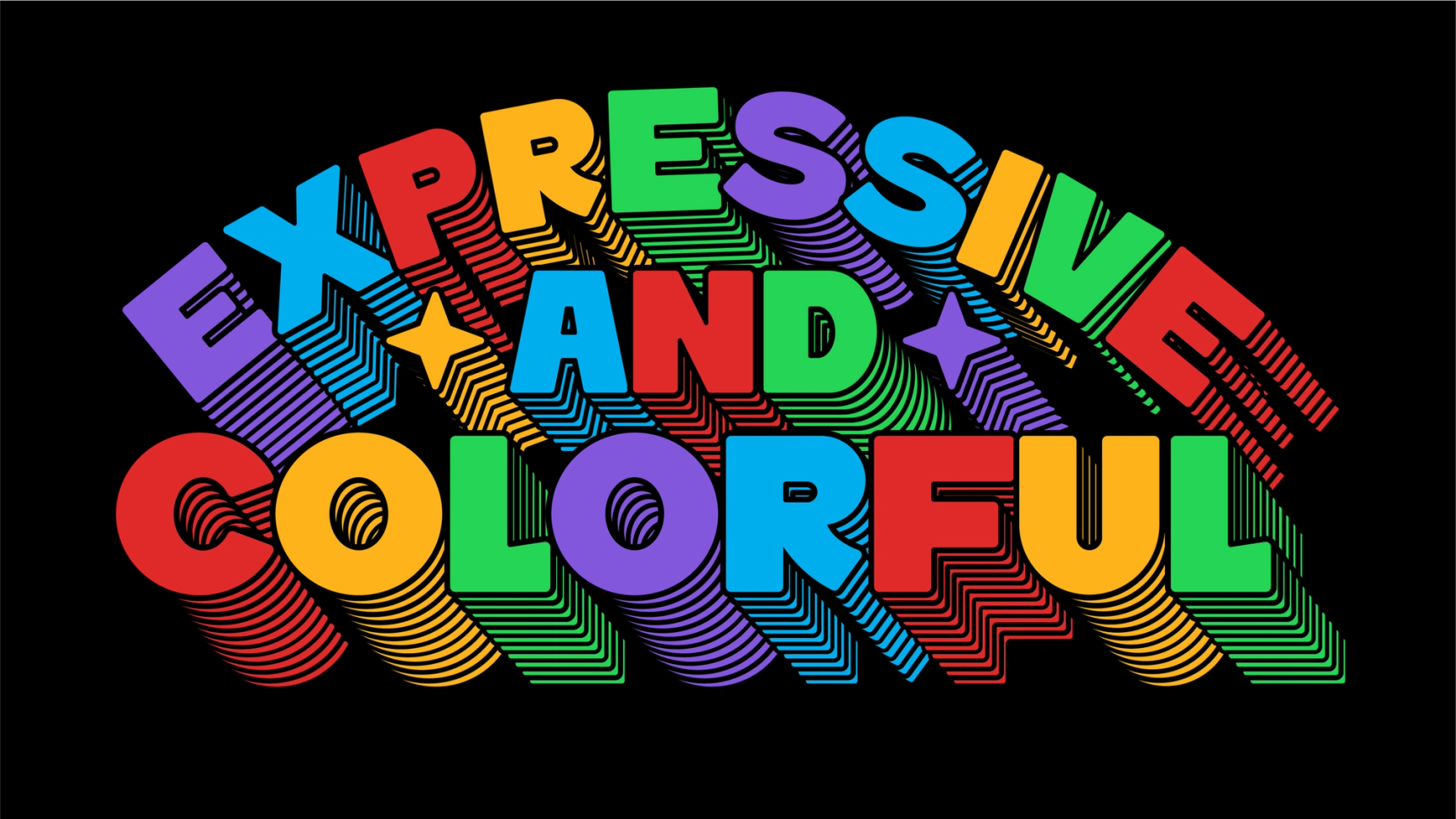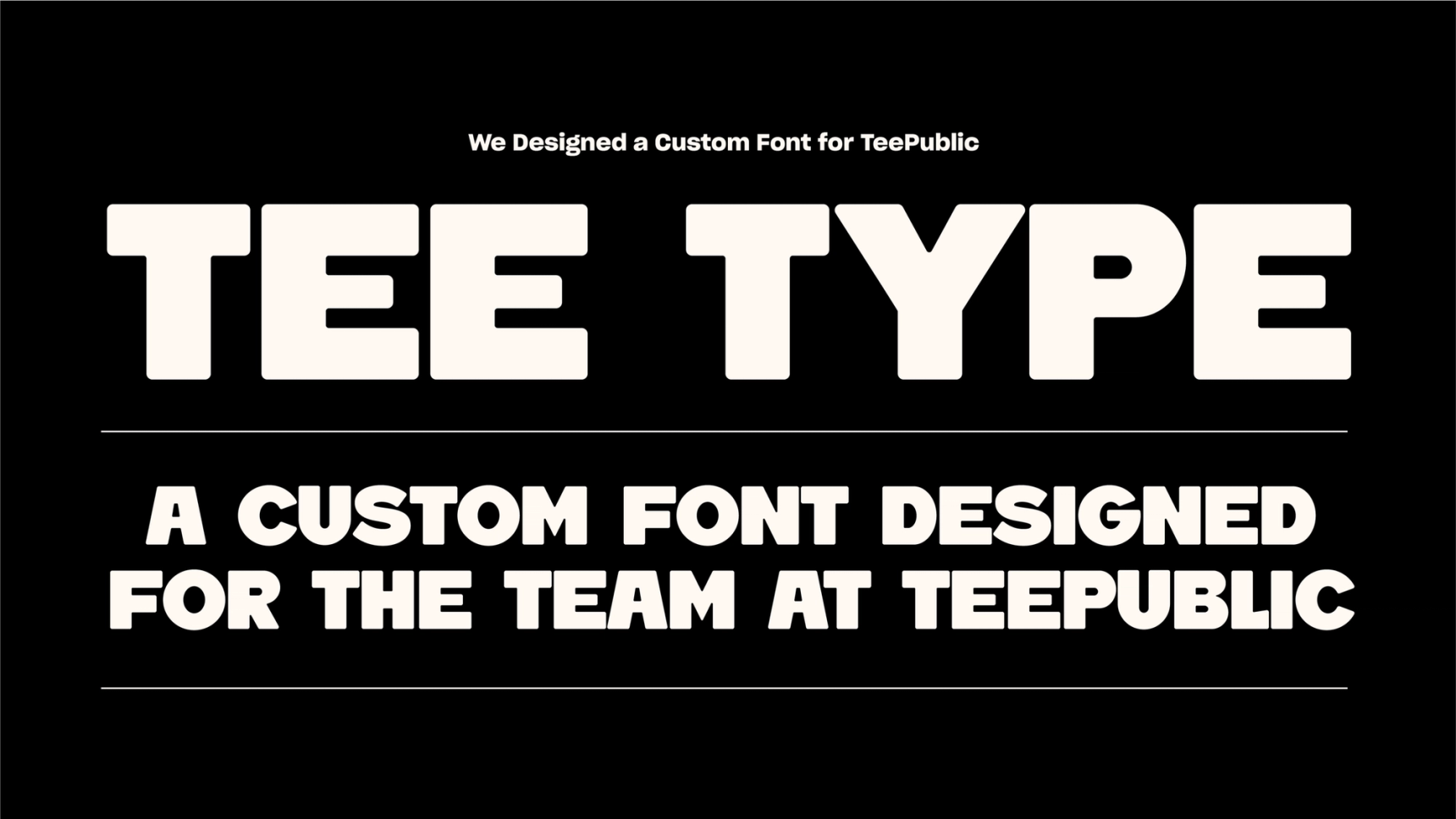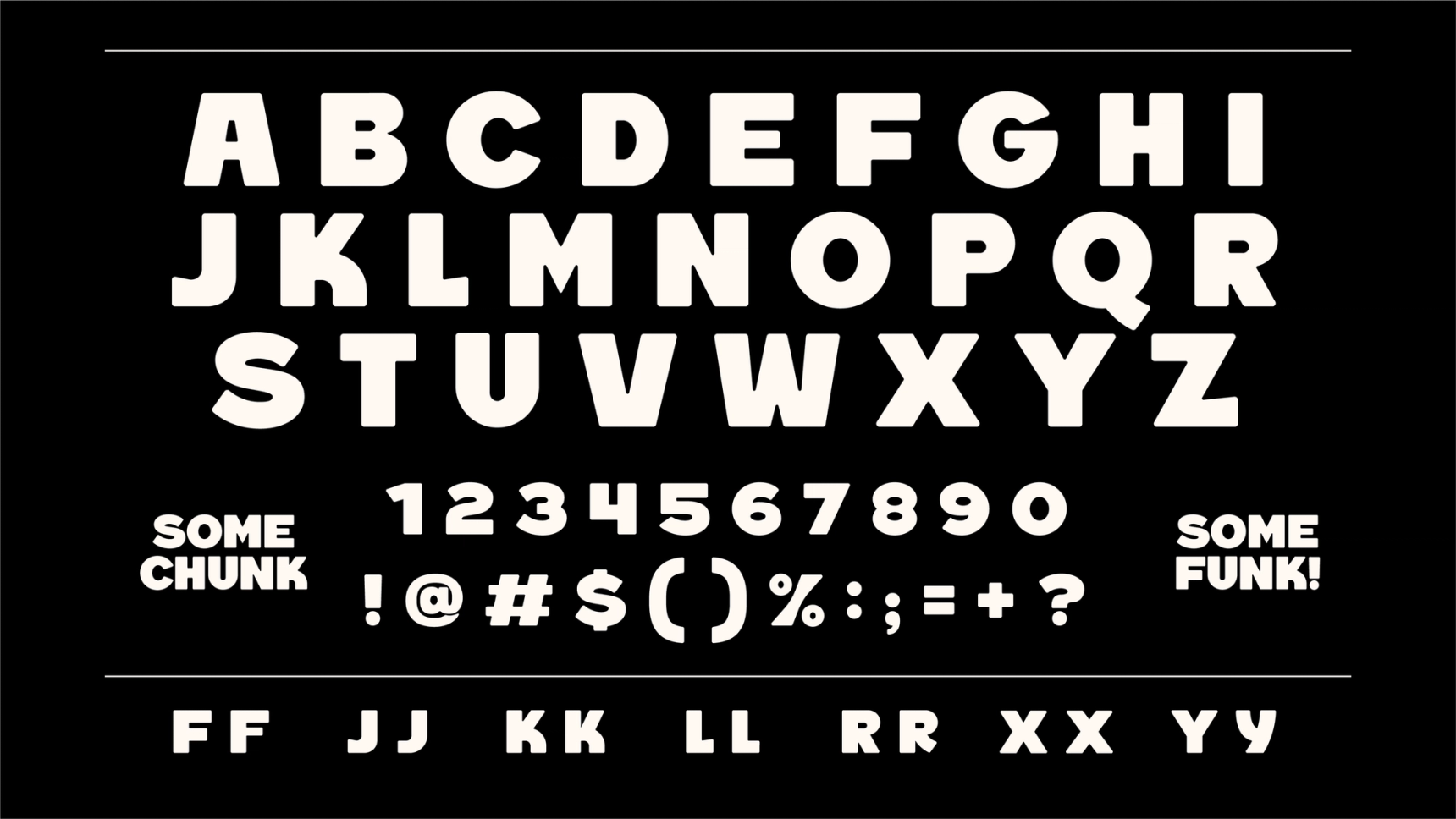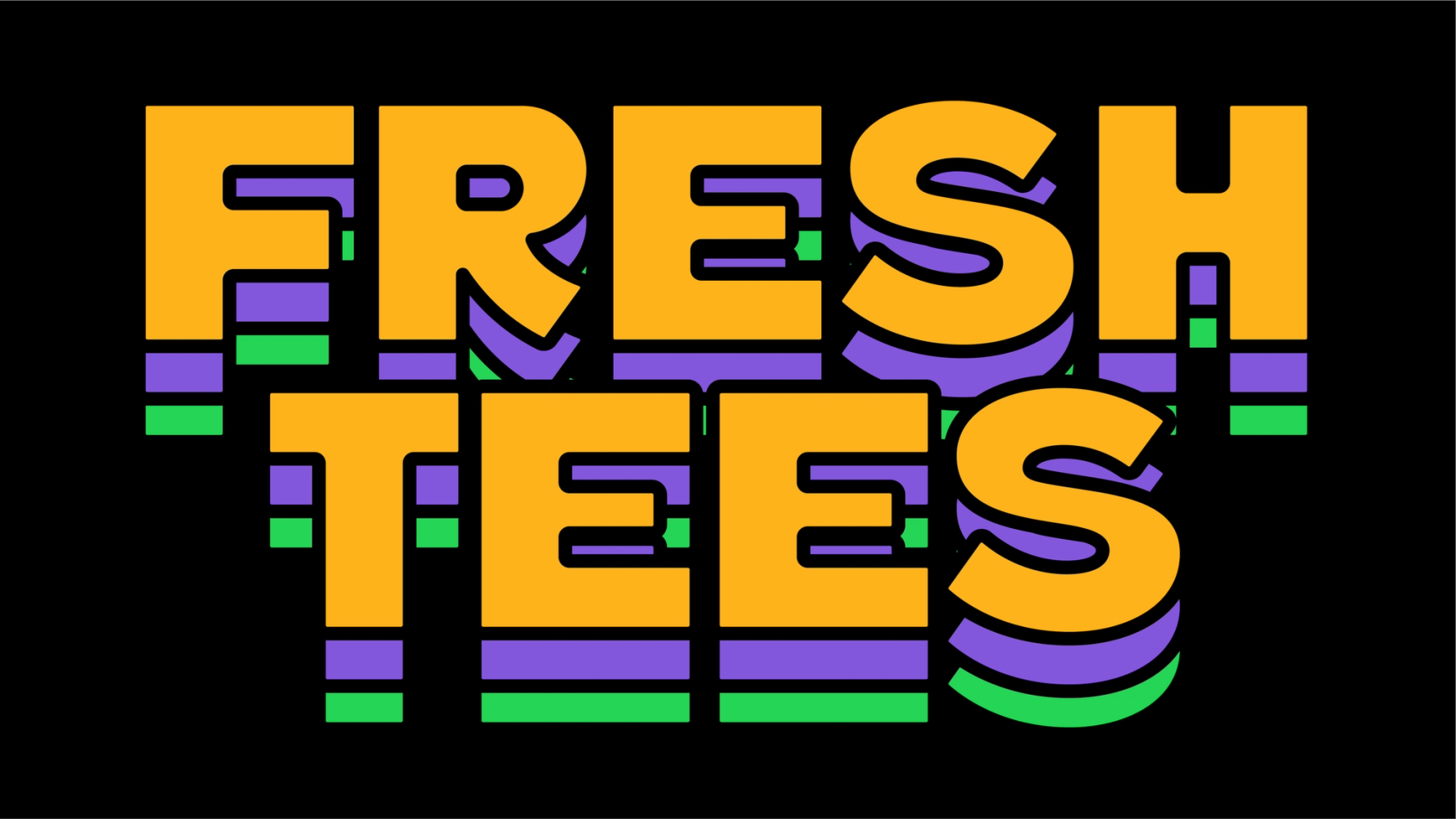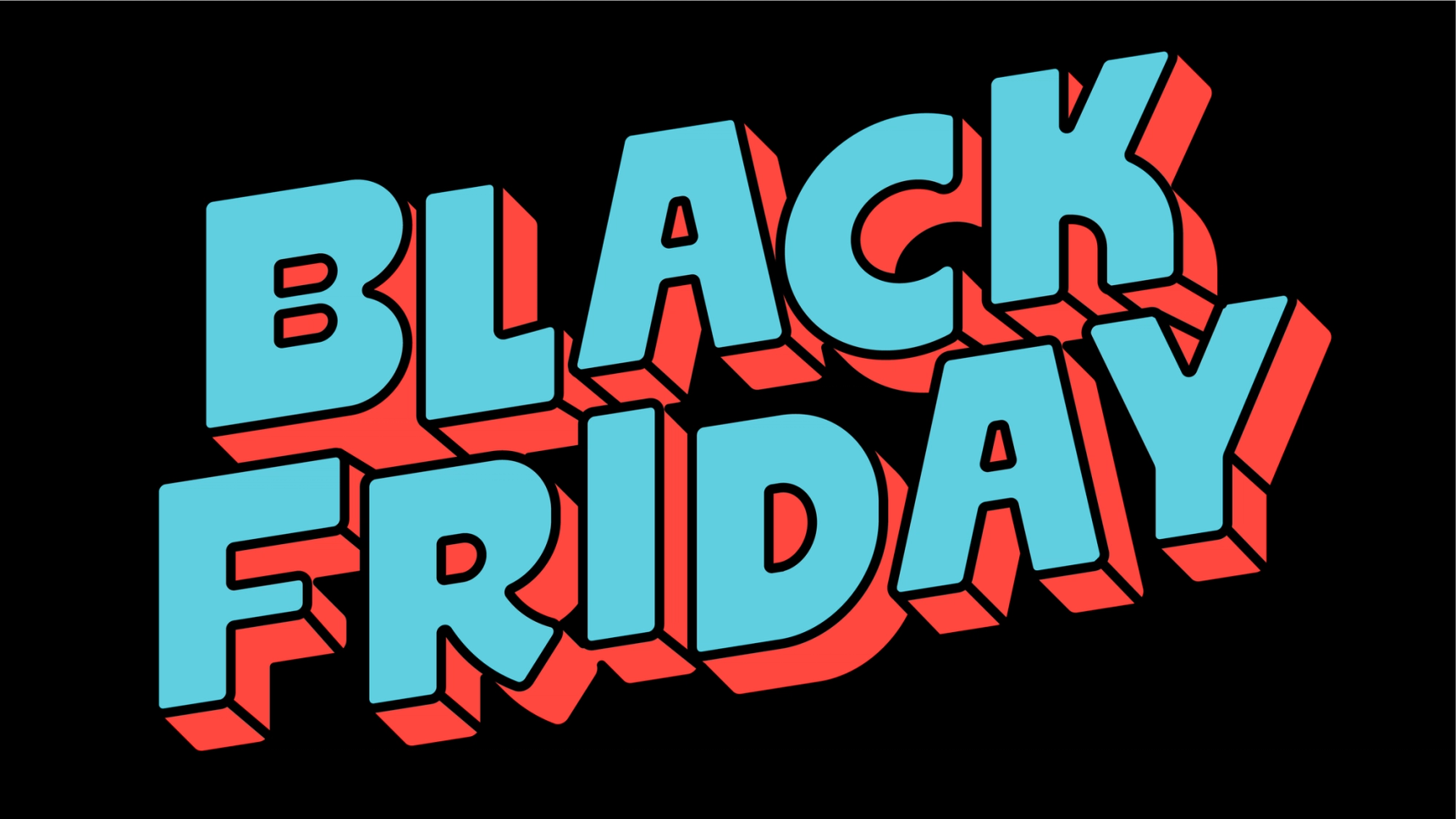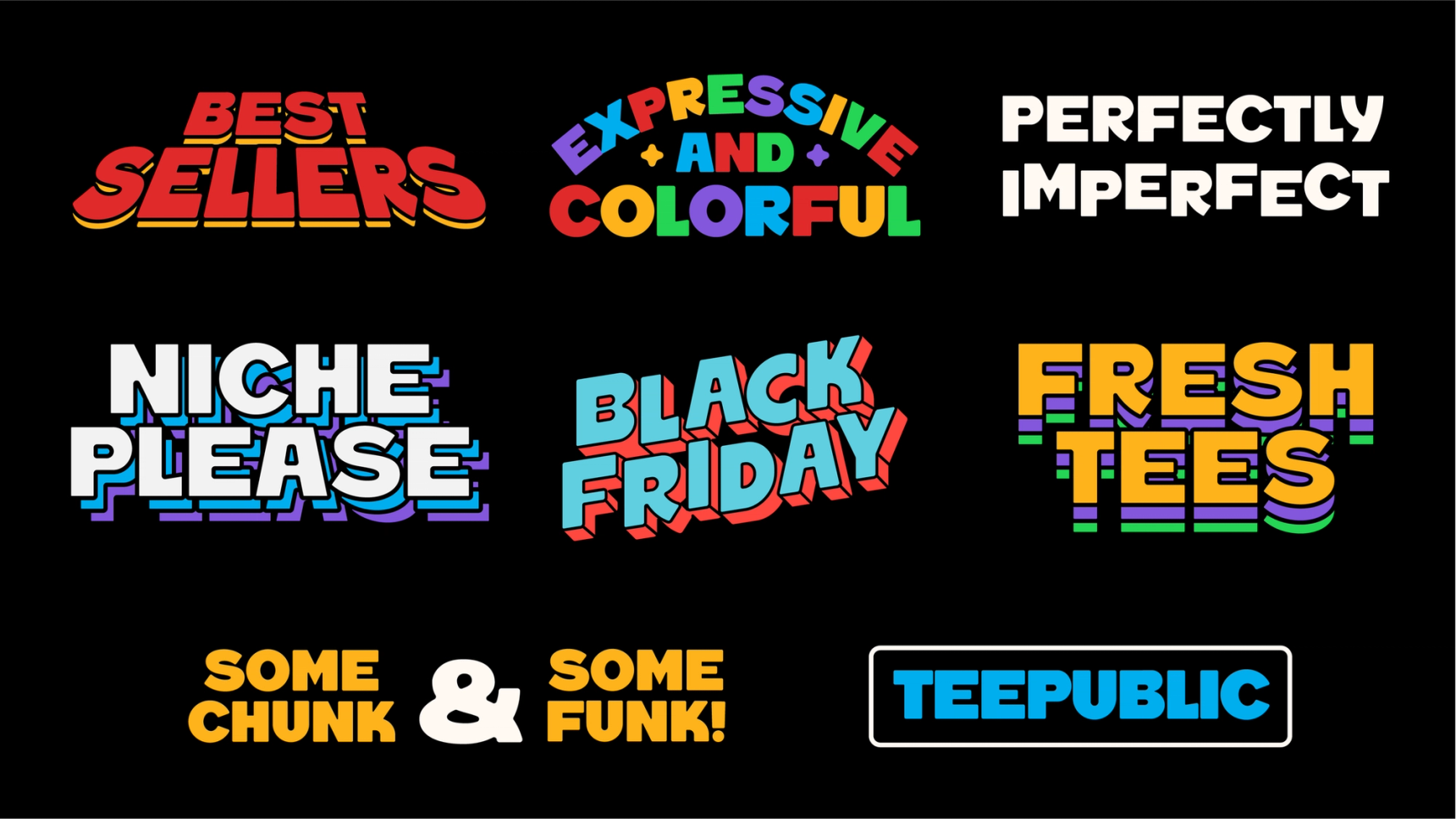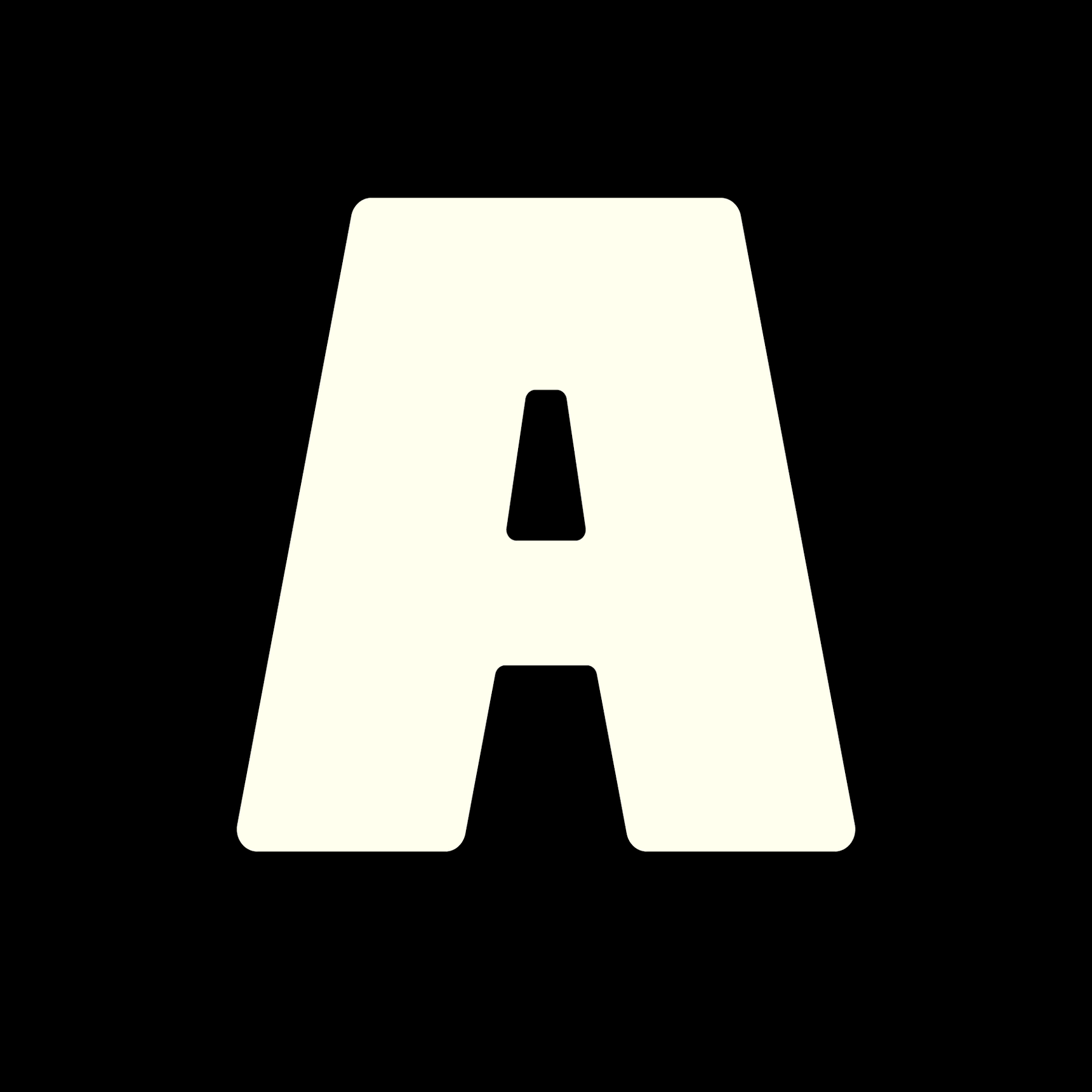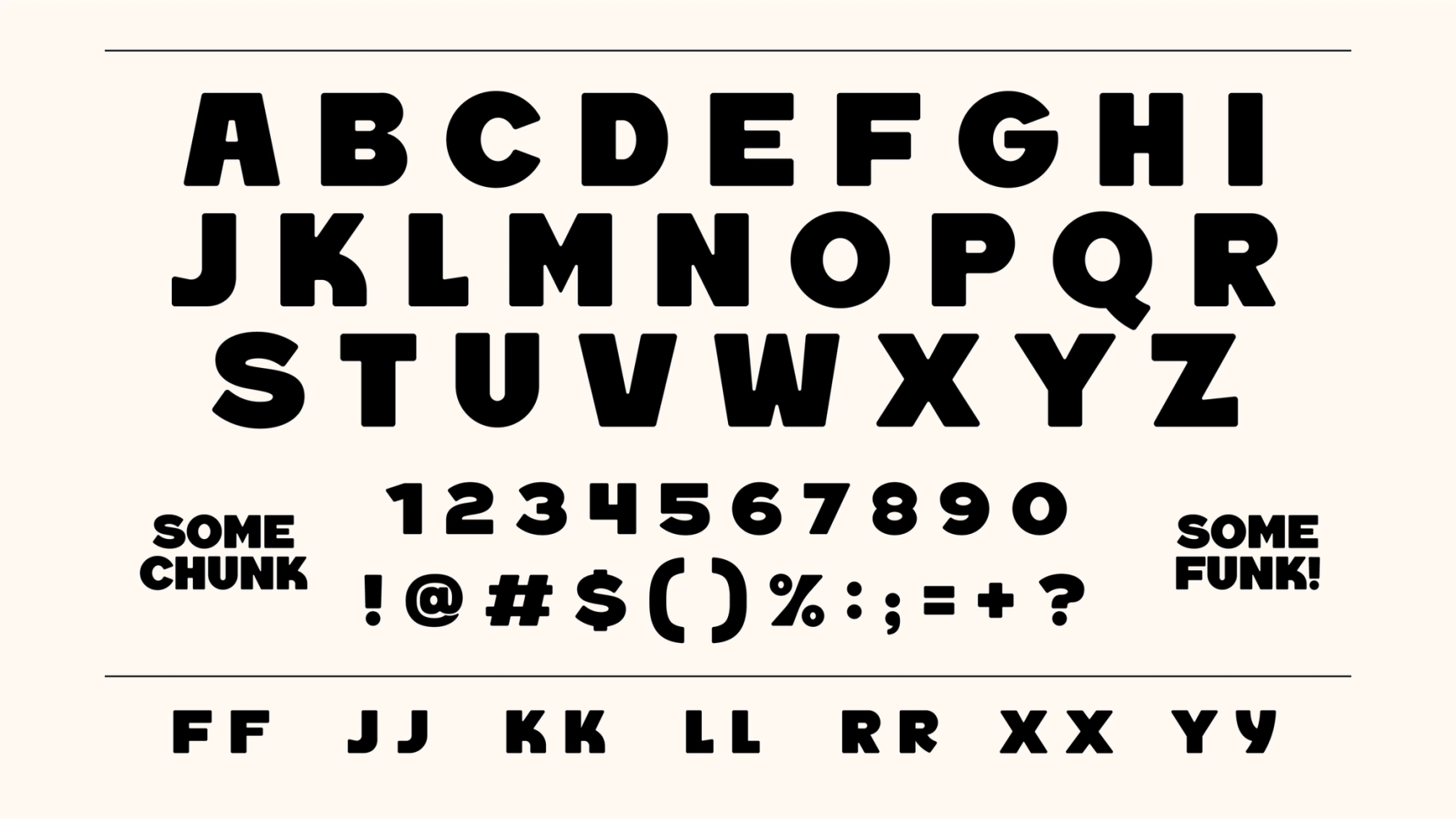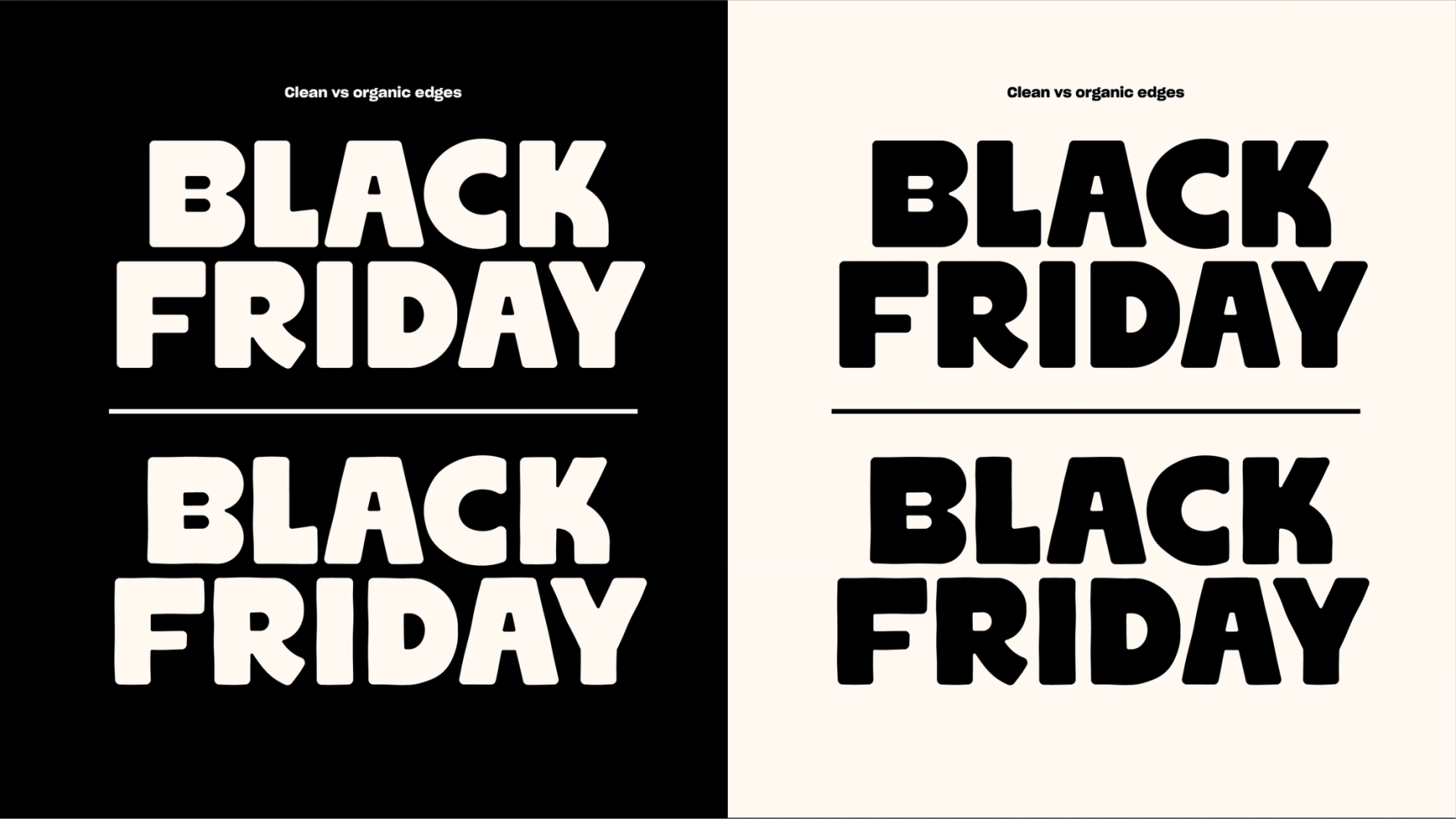
Teepublic Custom Font
Fun with Letters
We’ve collaborated with TeePublic’s internal creative team over the years on custom illustration, packaging, and graphic assets. This time, they brought us in to develop a custom font for their internal branding team to use across marketing, collateral, and promotional materials.
Huge thanks to Creative Director Kate Melvin for bringing us on board, and to Josh and Lauren for helping shape the direction. The team provided a general vision for the display font, and we started by focusing on the words Black Friday to define weight, characteristics, and overall vibe. From there, we created three clean iterations and three organic versions before refining the full alphabet. Such a fun project!